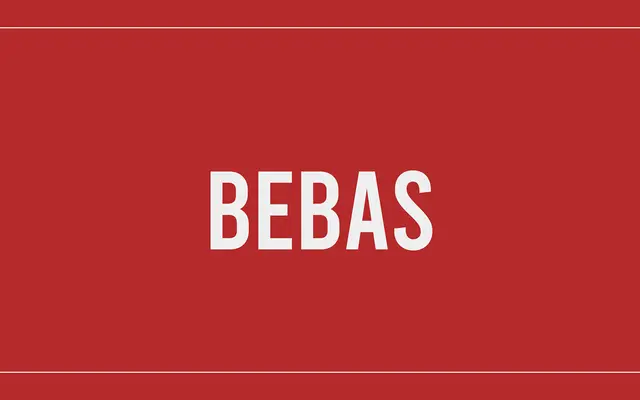
Bebas
Dharma Type · Ryoichi Tsunekawa · 2005
A free all-caps display sans originally created in 2005 as a personal type design exercise, intended for headlines and titling.
Created by Ryoichi Tsunekawa of Dharma Type in 2005, Bebas is a tall, clean all-caps sans built for headlines and captions. It started as a practice project shared with the design community for feedback, and the original version has since been discontinued. Its geometric monolinear construction has made it one of the more widely recognised free display faces in circulation.
All-caps geometric sans designed primarily for headlines and titling, with a tall, condensed construction and clean monolinear strokes typical of display-oriented sans-serif lettering.